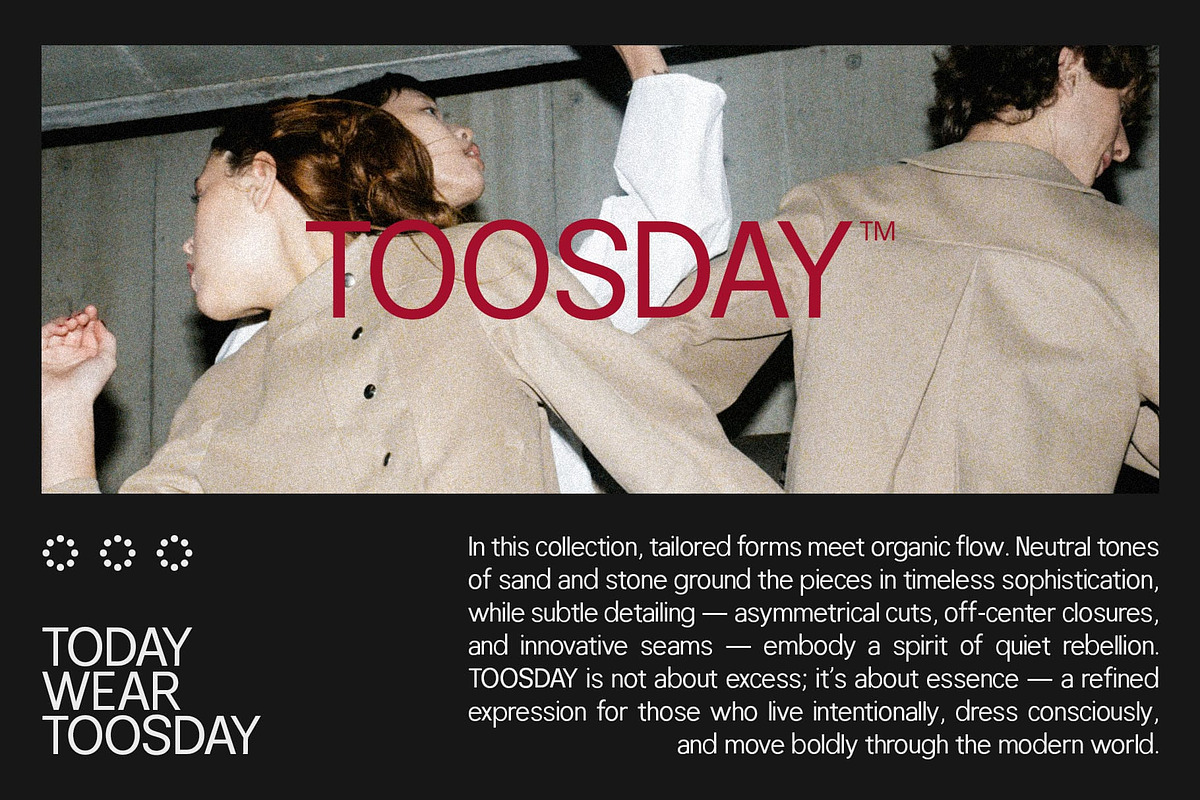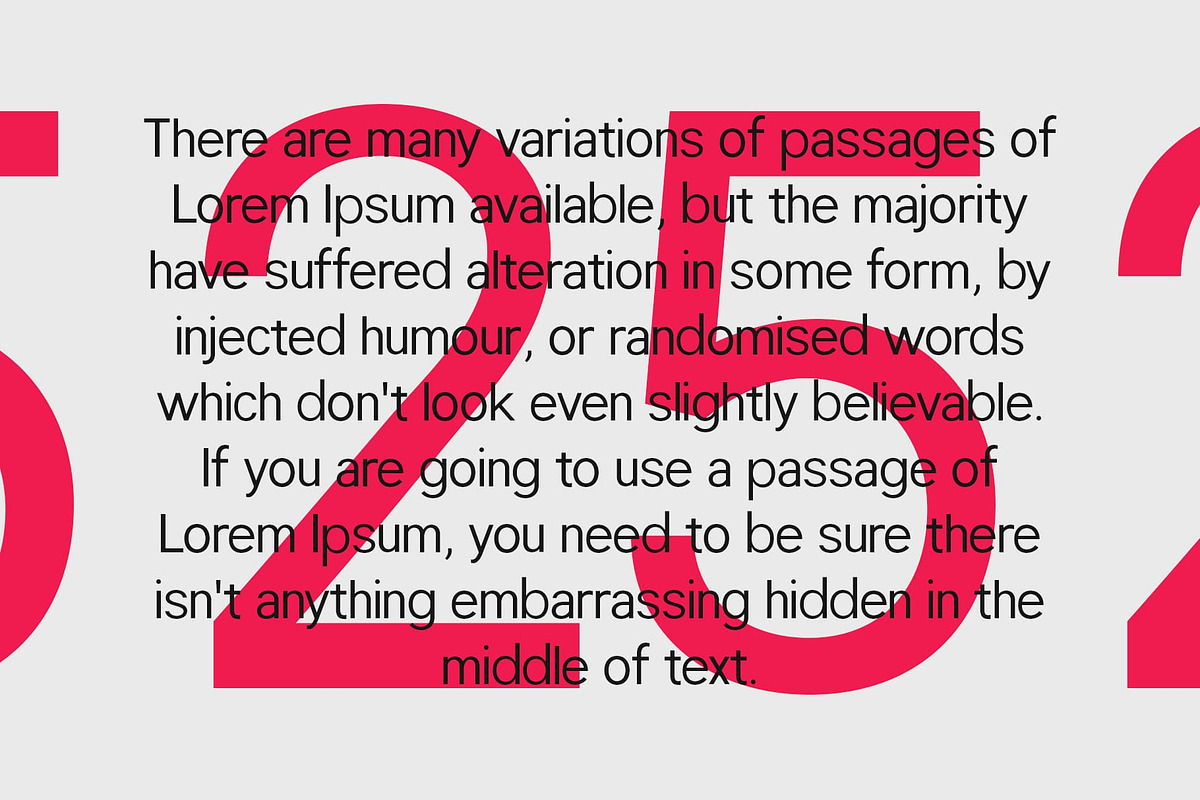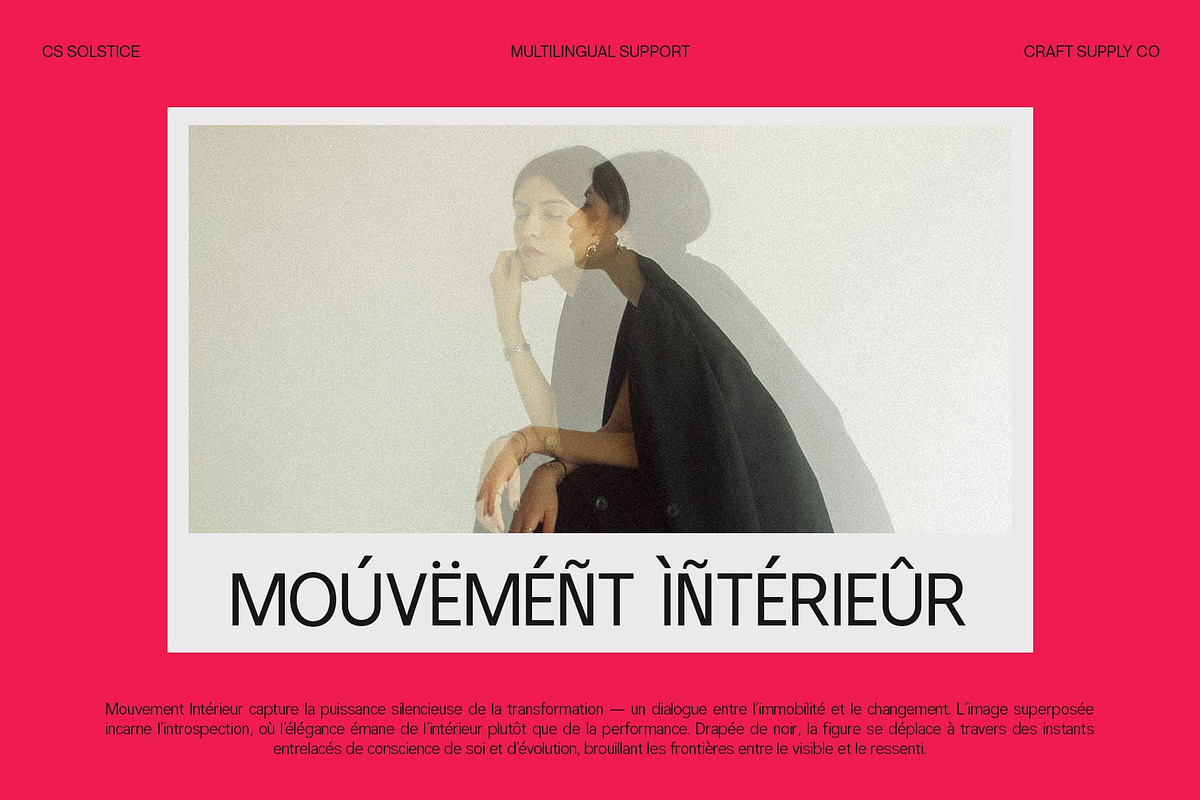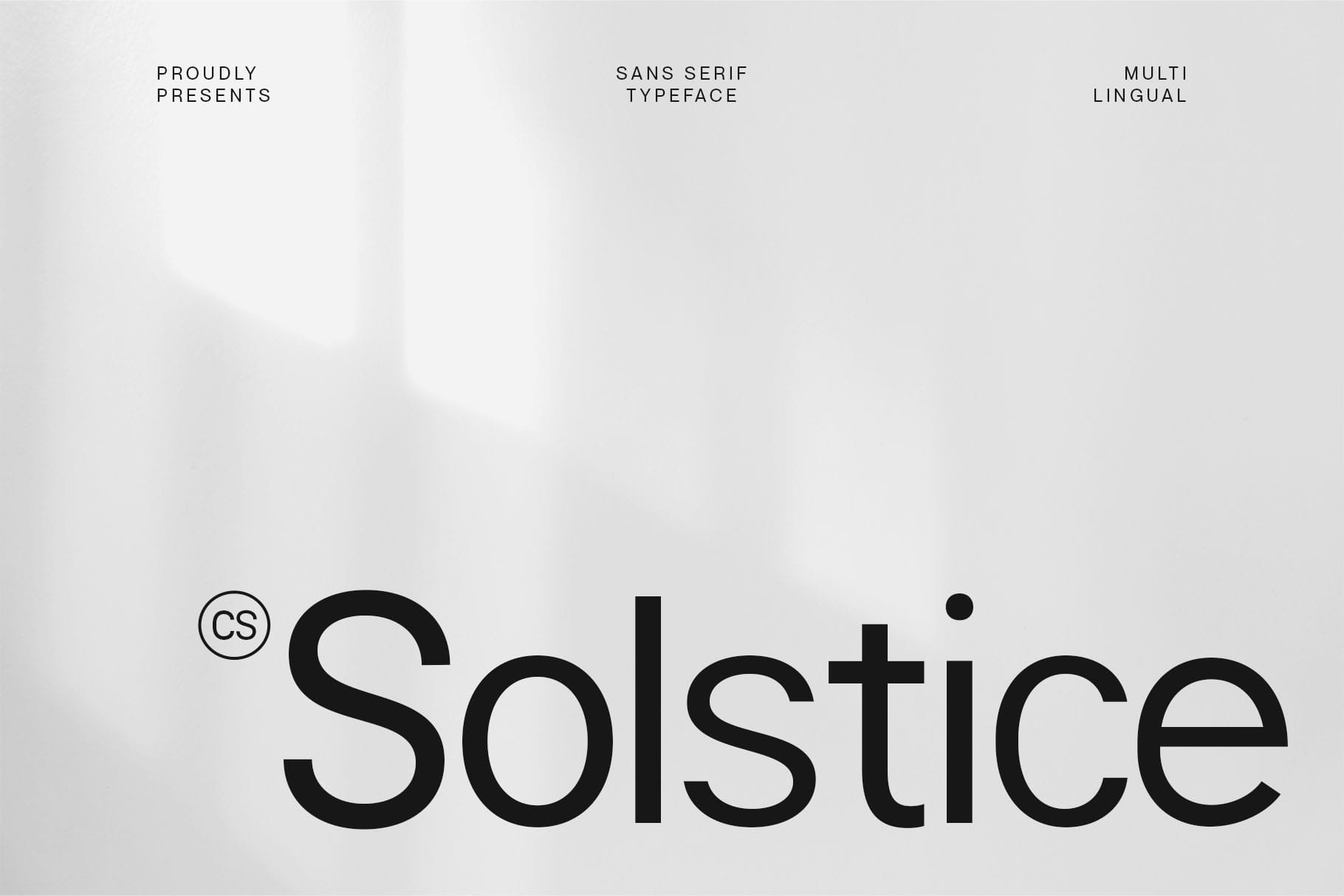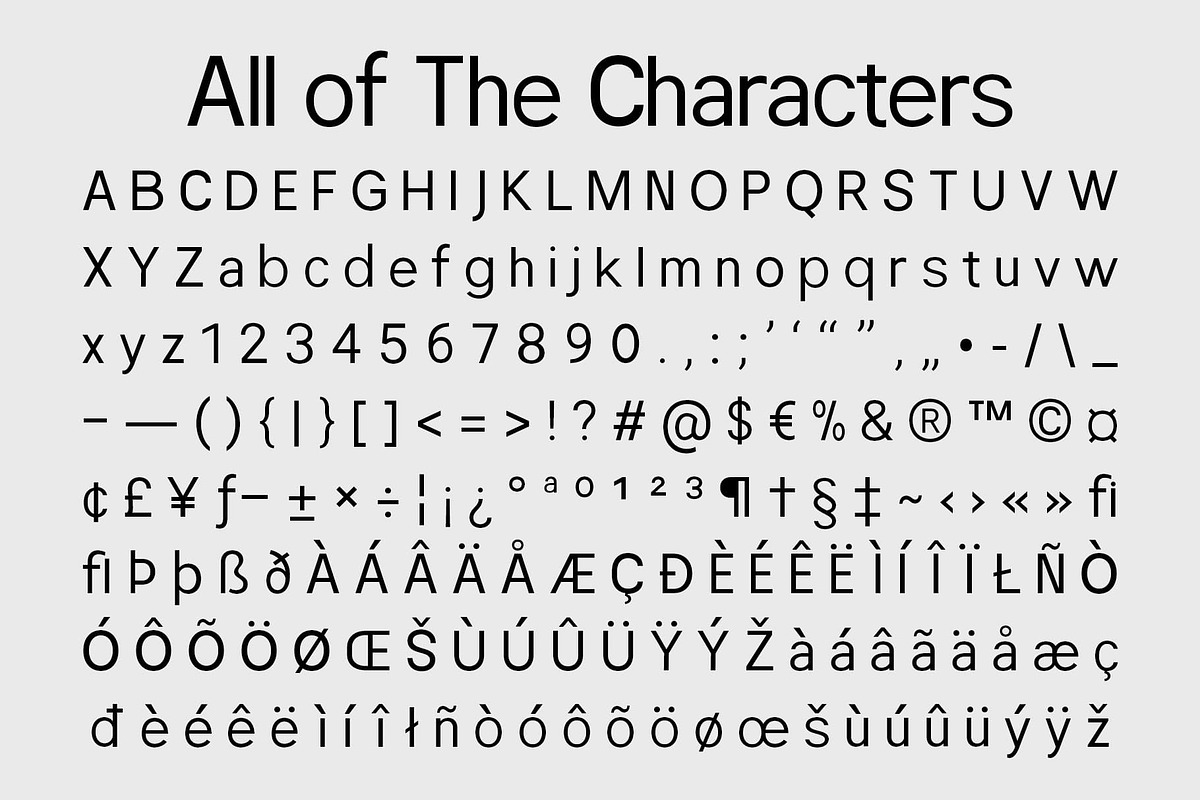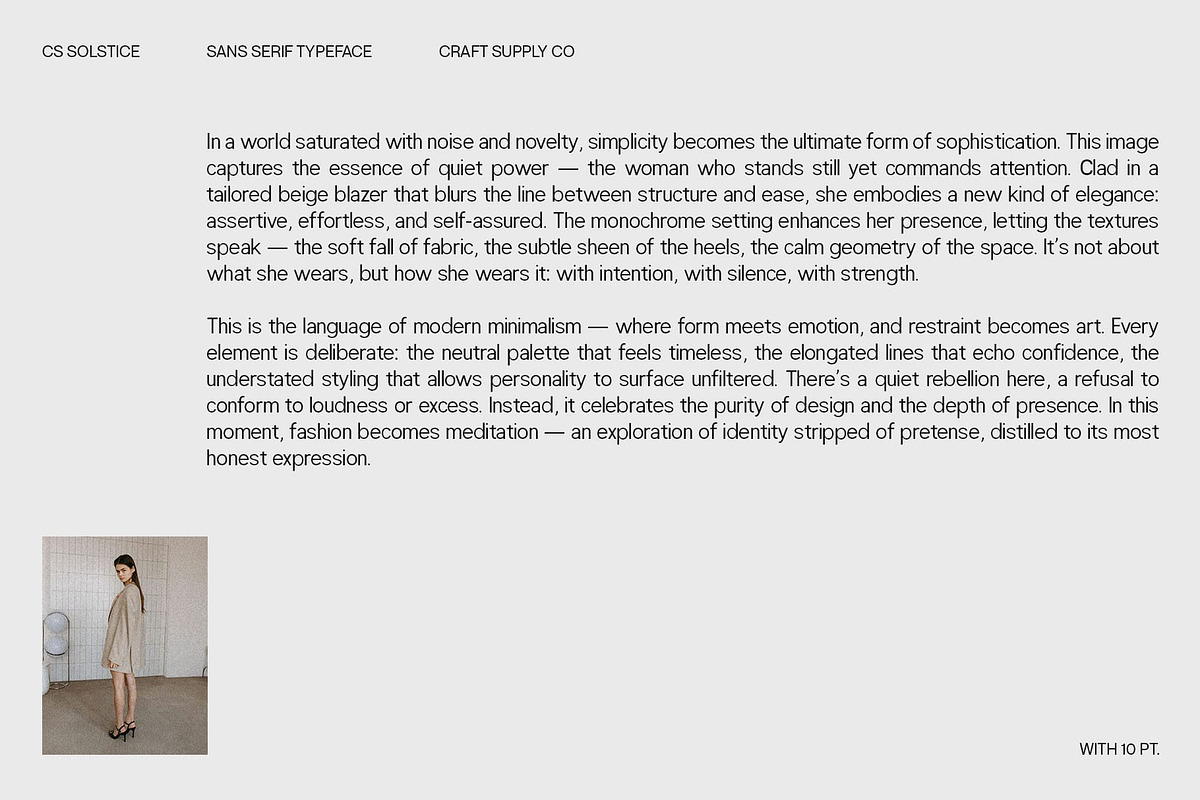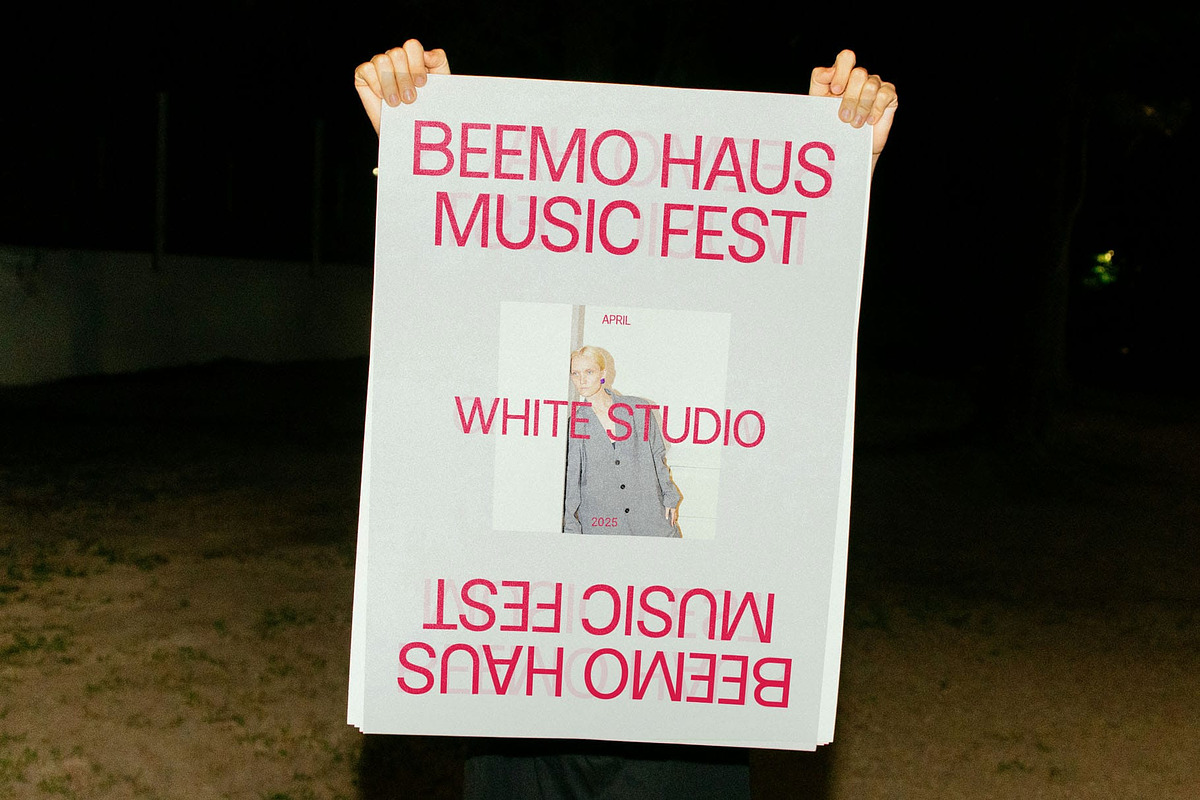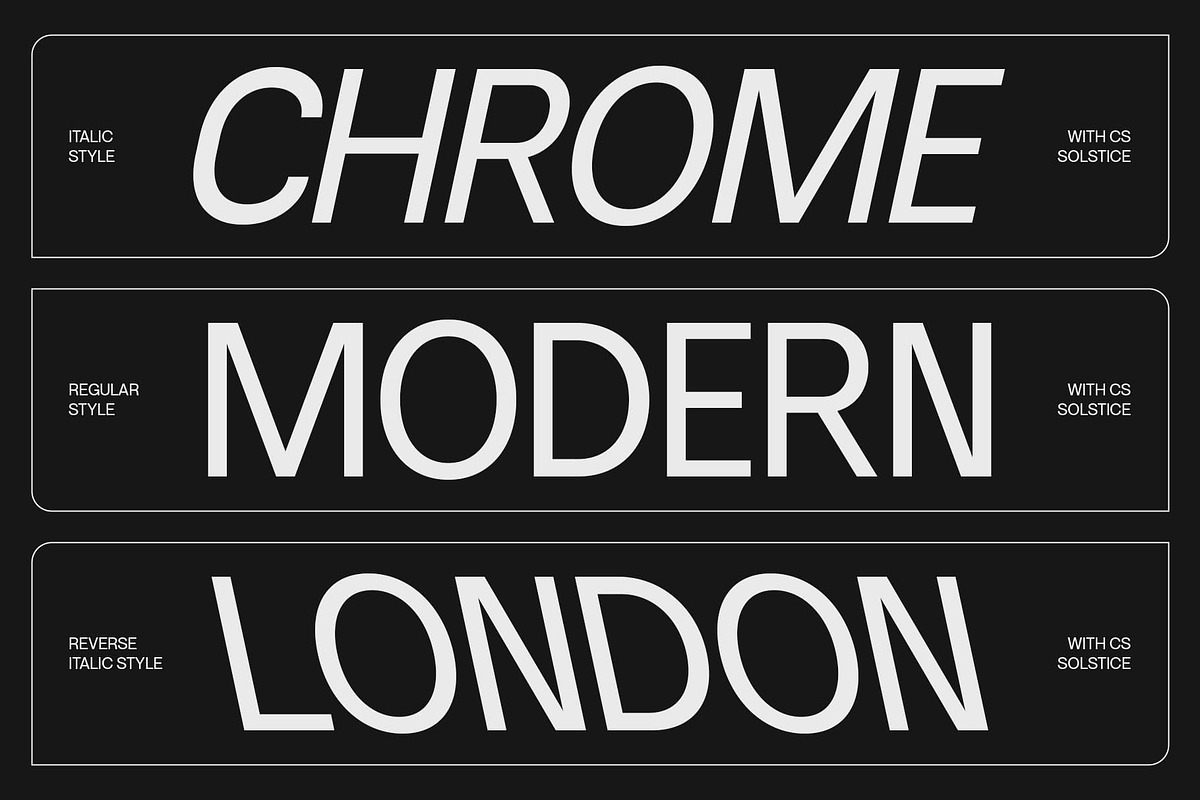
CS Solstice – Sans Serif Font
CS Solstice – Sans Serif Font with Confident Style: Strength and Clarity in Every Letter
Clean Design with Bold Presence This is a sans serif font designed to communicate confidence and clarity. Its clean lines and balanced proportions create a strong, modern aesthetic that stands out in any layout, making it ideal for designers who value precision and readability.
Structured Simplicity for Maximum Impact With a focus on minimalism and geometric harmony, this font delivers a polished, professional appearance. The font’s crisp forms and even stroke weight enhance legibility while projecting strength, ensuring that every message is delivered with authority.
Perfect for Headlines and Branding This font excels in applications that demand visual impact. Whether used for headlines, branding, editorial layouts, or minimalist designs, it communicates professionalism and style with effortless clarity. Its versatile nature makes it suitable for both digital and print projects.
Swiss Design Influence and Modern Elegance Inspired by the clean principles of Swiss design, this font blends timeless structure with contemporary appeal. Its understated elegance and confident form make it a go-to choice for designers seeking a font that combines modernity, sophistication, and visual strength in every application.
- CS Solstice Regular
- CS Solstice Italic
- CS Solstice Reverse Italic